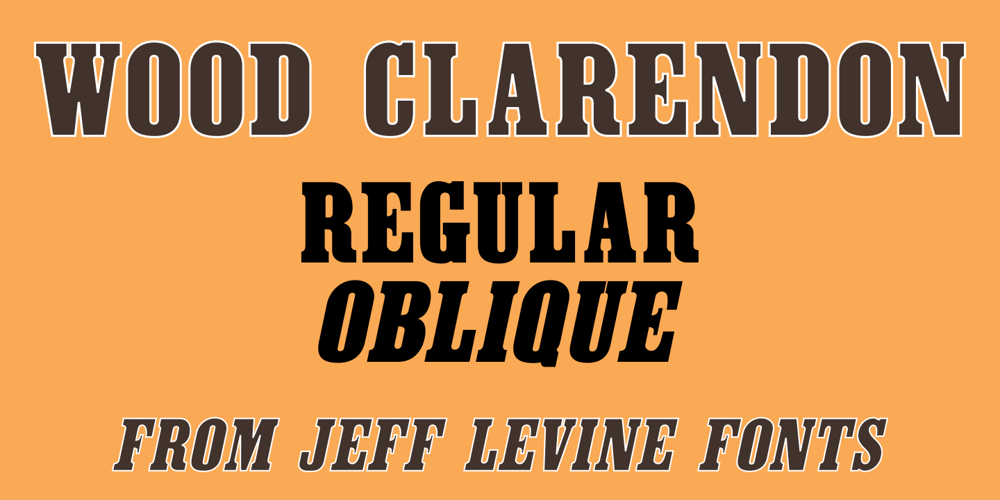
Wood Clarendon JNL Font Family was designed by Jeff Levine and published by Jeff Levine. Wood Clarendon JNL contains 2 styles and family package options. Wood Clarendon JNL is based on Hamilton Clarendon Condensed (circa 1899) and is available in both regular and oblique versions.The design of this typeface retains many of the charming (but slight) design irregularities often found within pantograph-cut wood type from the 1800s through the early 1900s.